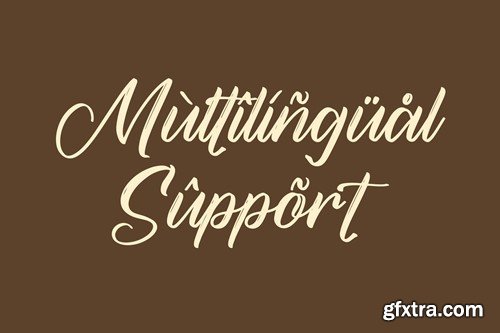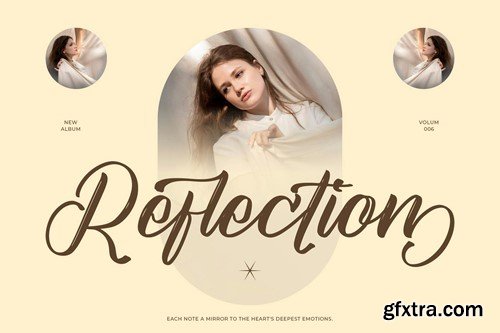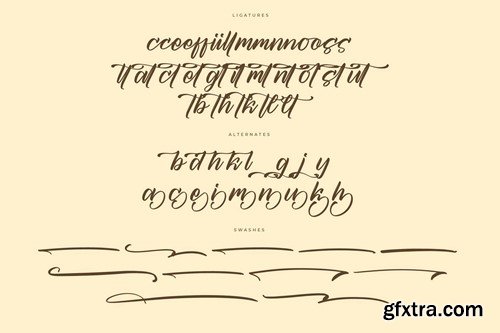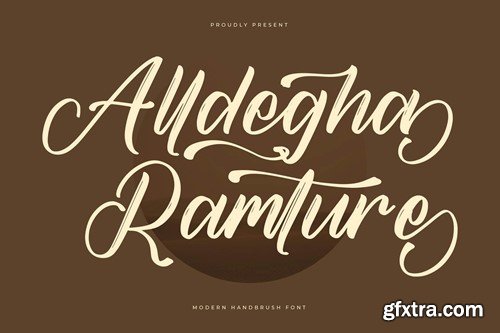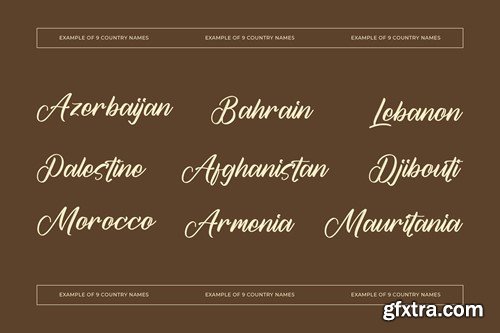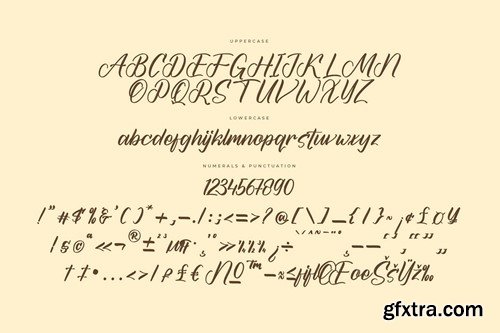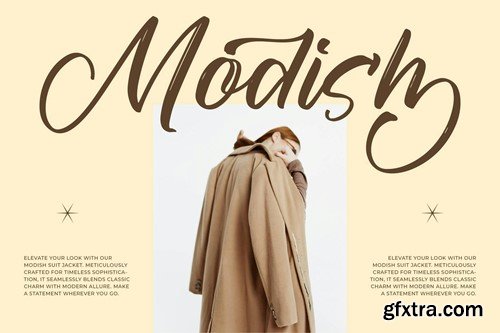
阿德哈·拉穆特现代手绘字体 RDEFTAD
Alldegha Ramture Modern Handbrush Font RDEFTAD
Alldegha Ramture Modern Handbrush Font
Hi ladies & gentlemen, this is one of our fonts suitable to complement your digital and printed creative products. This font is perfect for posters, social media posts, branding, personal projects, etc.